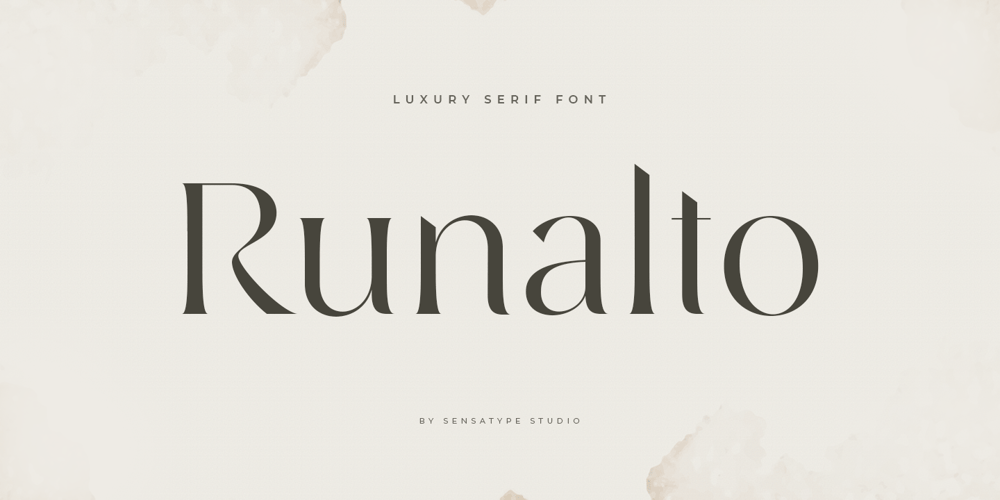
Runalto
Runalto font
Runalto Font Family was designed by Zamroni Hamzah and published by Sensatype Studio. Runalto contains 1 styles and family package options. Runalto is a display serif font with luxury, elegant, modern, unique and classy-look. This font crafted specials for luxury-themed projects, ready to use on Magazine, Social Media, Branding, Logo, and Many more that needs Luxury touchs.